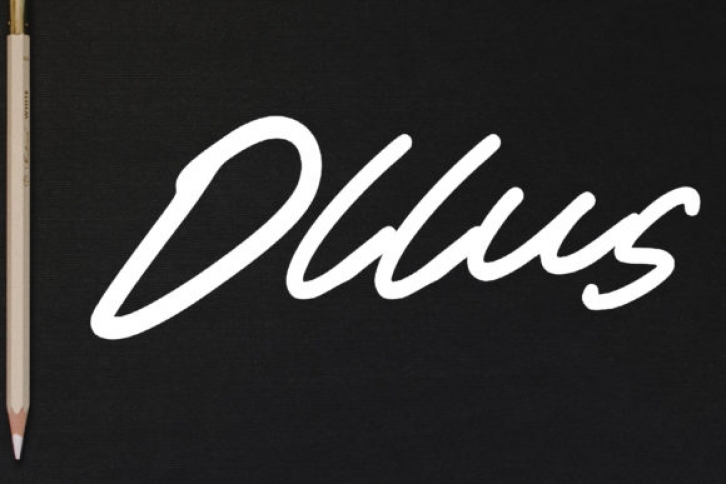
Ollus is a sweet and unique handwritten font. Fall in love with its incredibly versatile style and use it to create gorgeous invitations, beautiful stationary art, eye-catching social media posts, and much more!